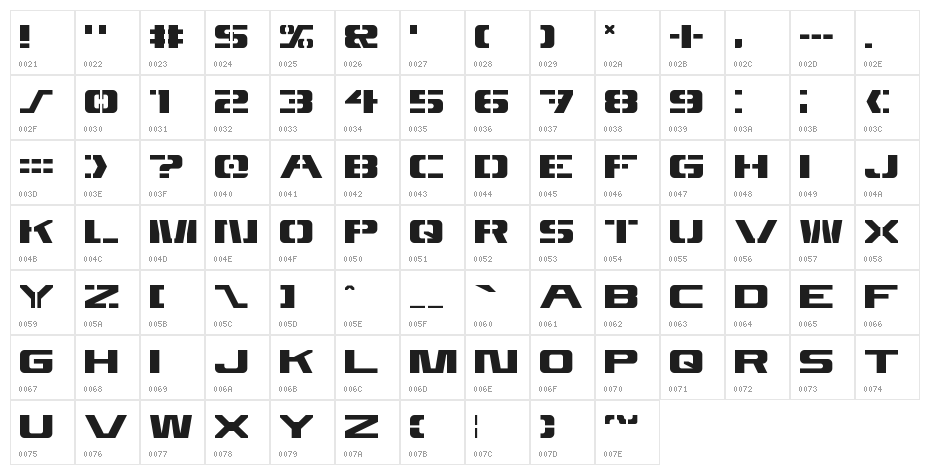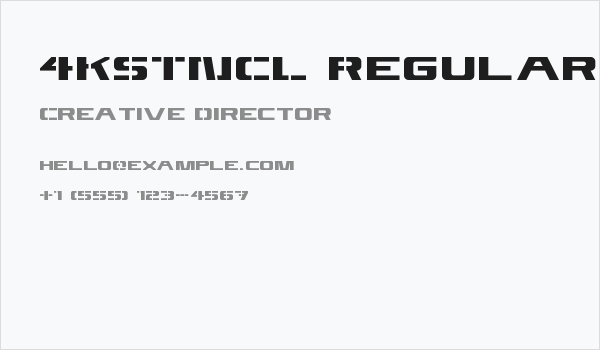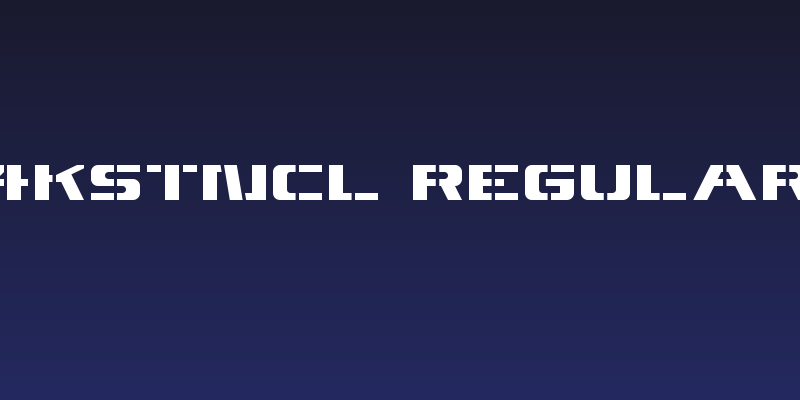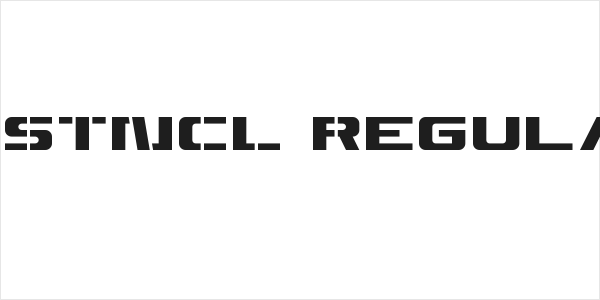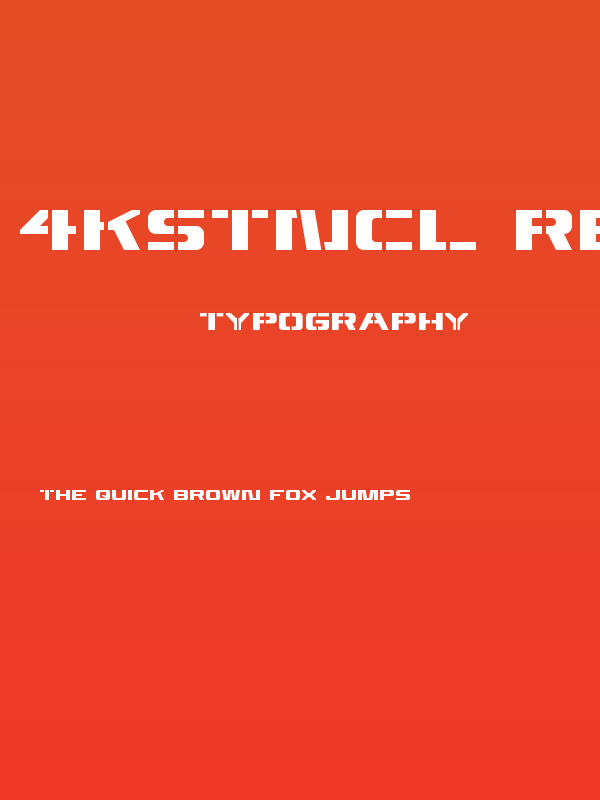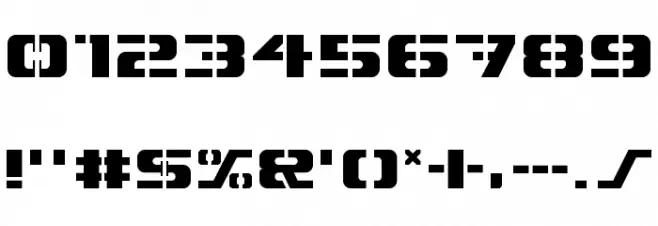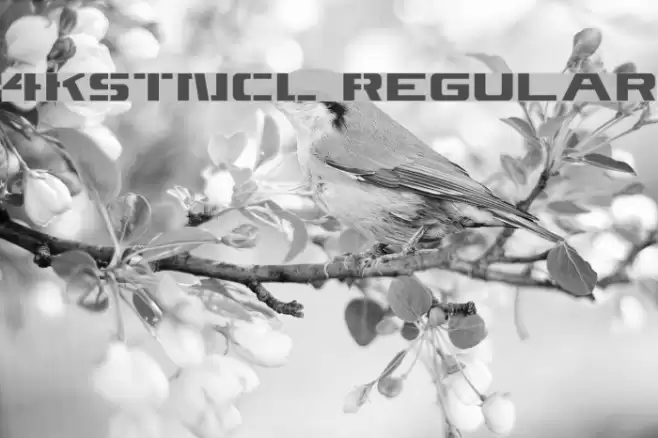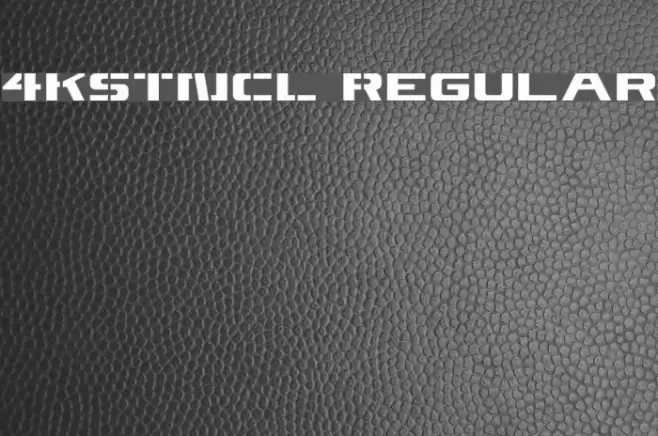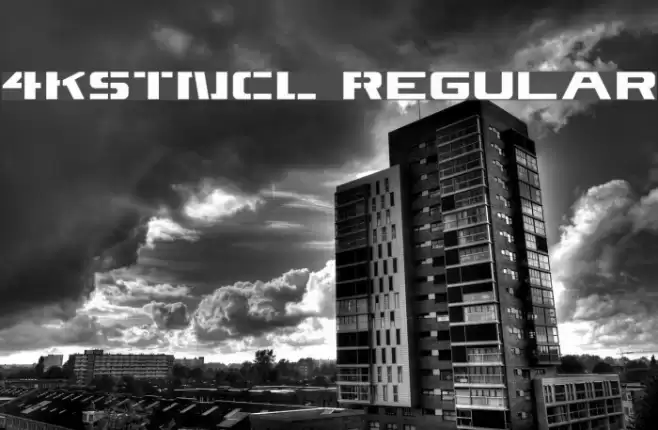
4KSTNCL Regular Font
4KSTNCL Regular Description
This font features a bold, stencil-like design with strong geometric shapes and sharp angles. The characters are constructed with a combination of solid and cut-out sections, giving it a rugged, industrial feel. The uppercase letters are particularly striking, with a uniform height and width that create a cohesive look. The numbers and special characters maintain the same bold style, ensuring consistency across all text. This font is ideal for projects that require a strong, impactful visual presence.
| Overall Style | Industrial, Modern |
| Proposed Projects | Ideal for military-themed designs, industrial branding, posters, and signage. |